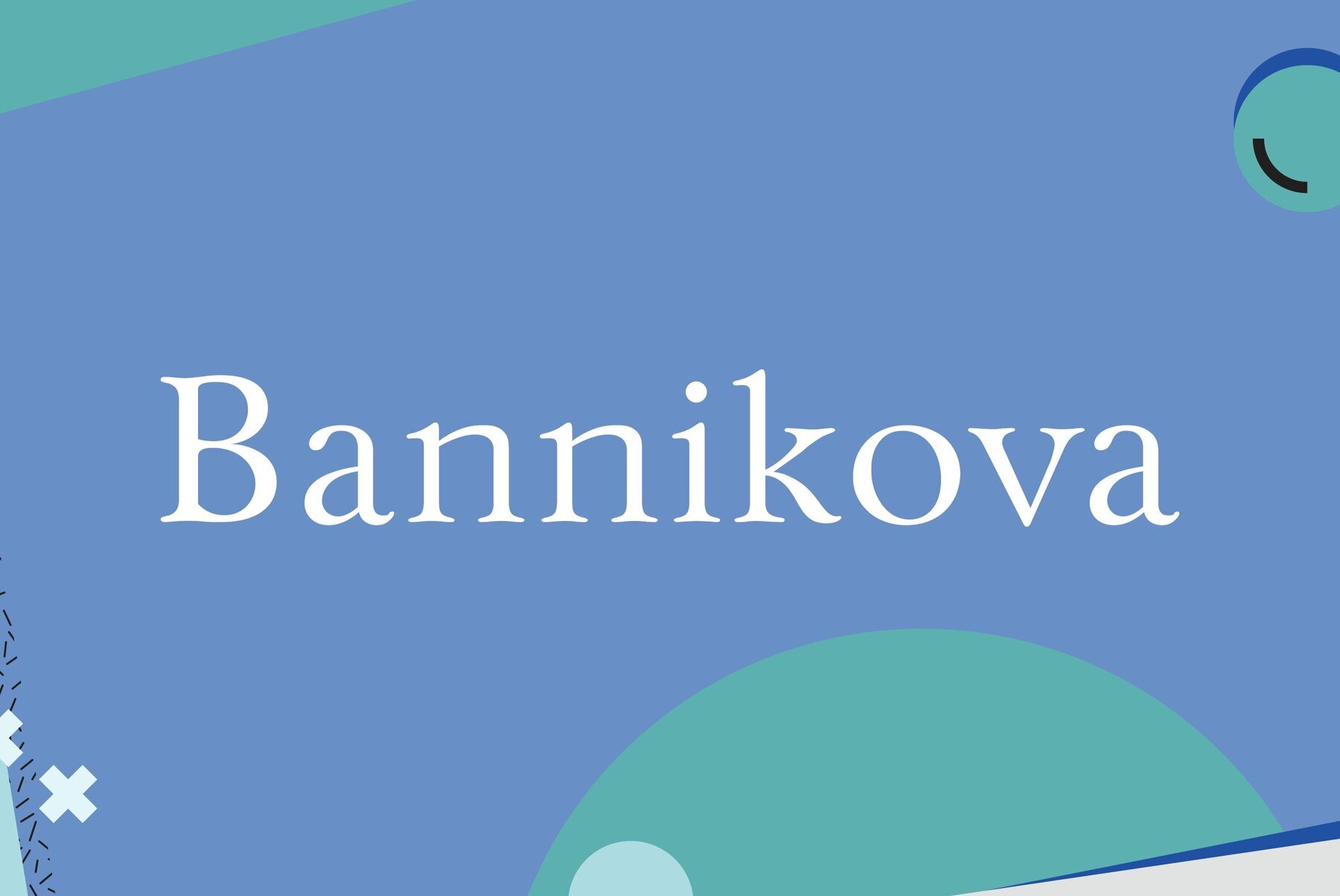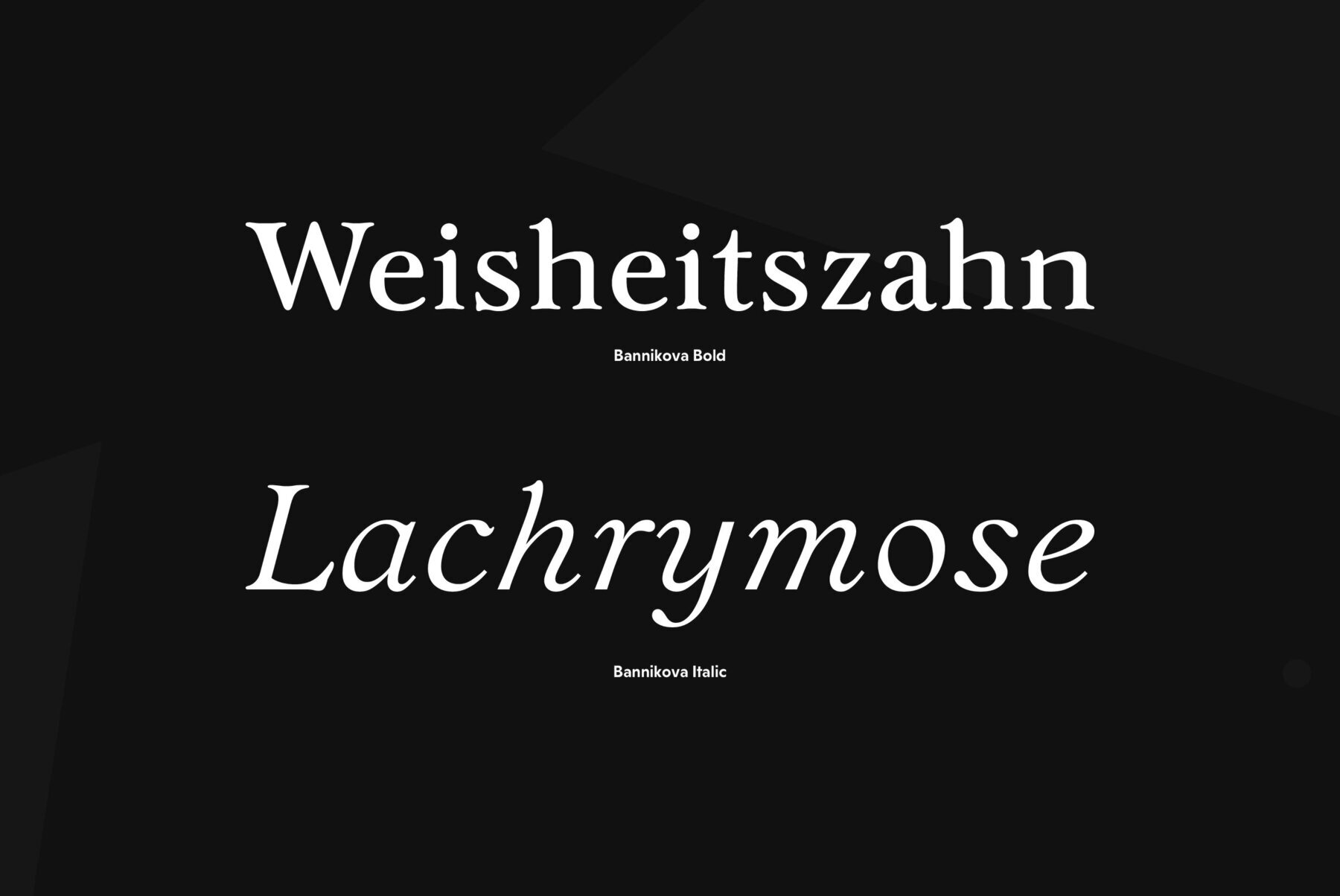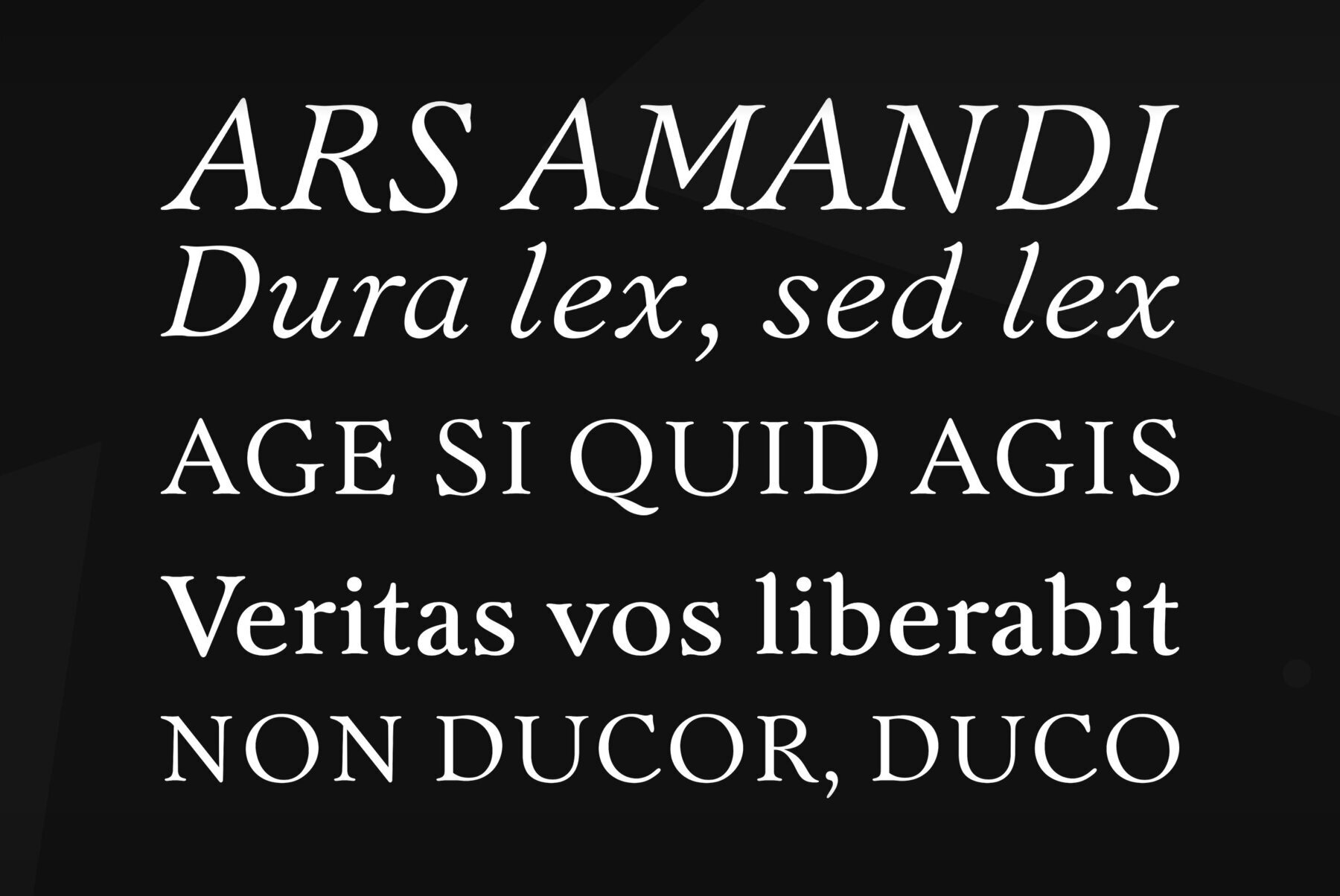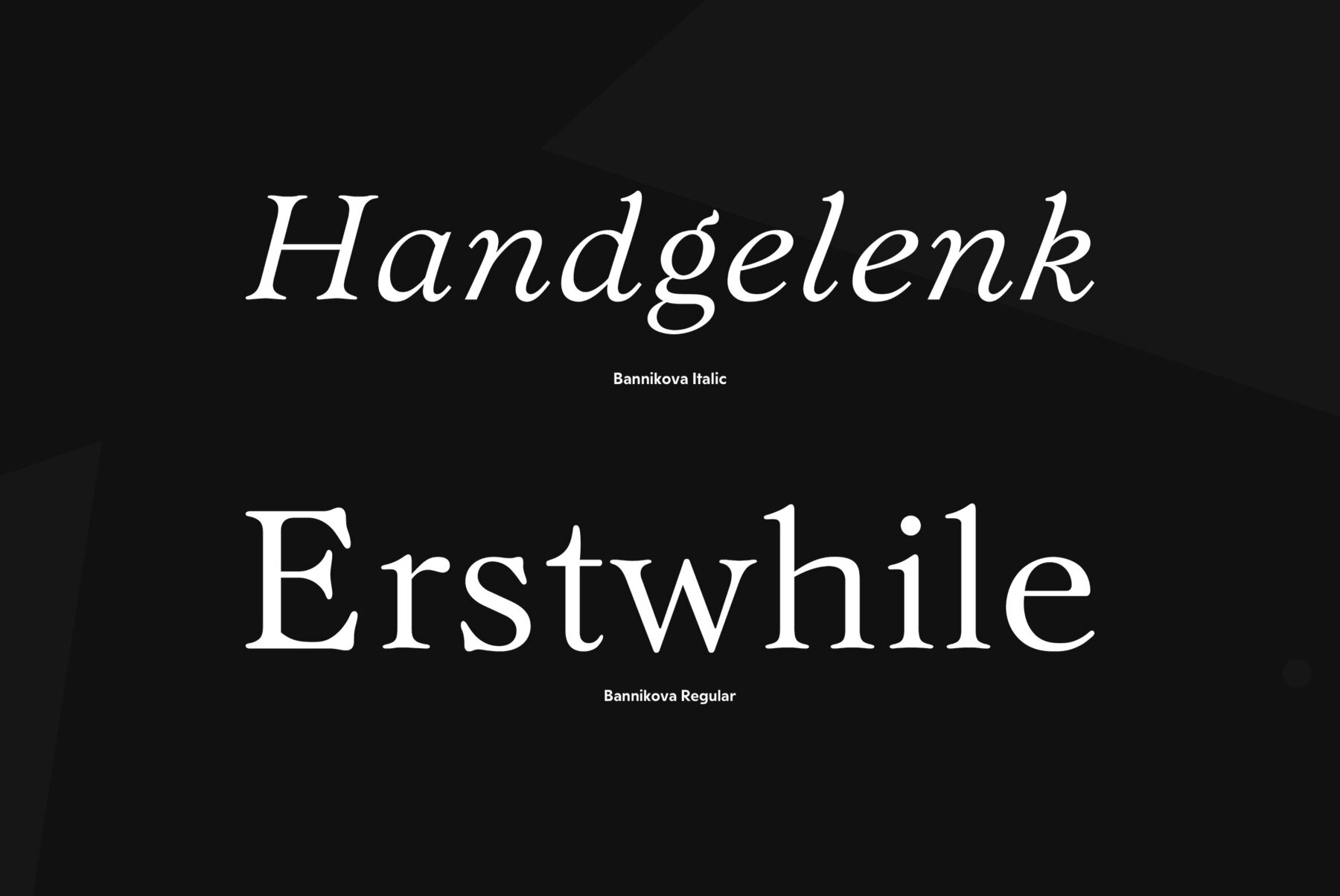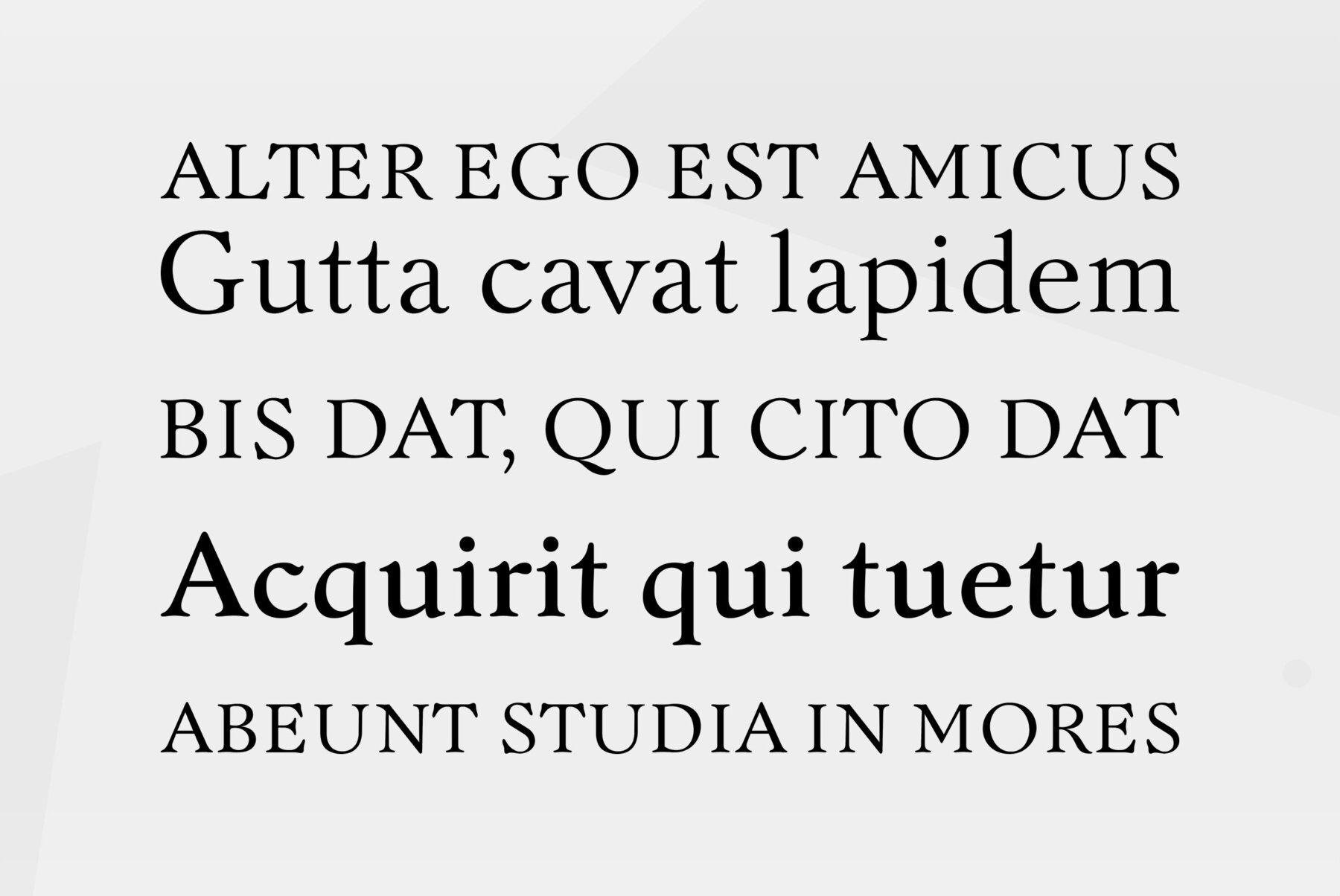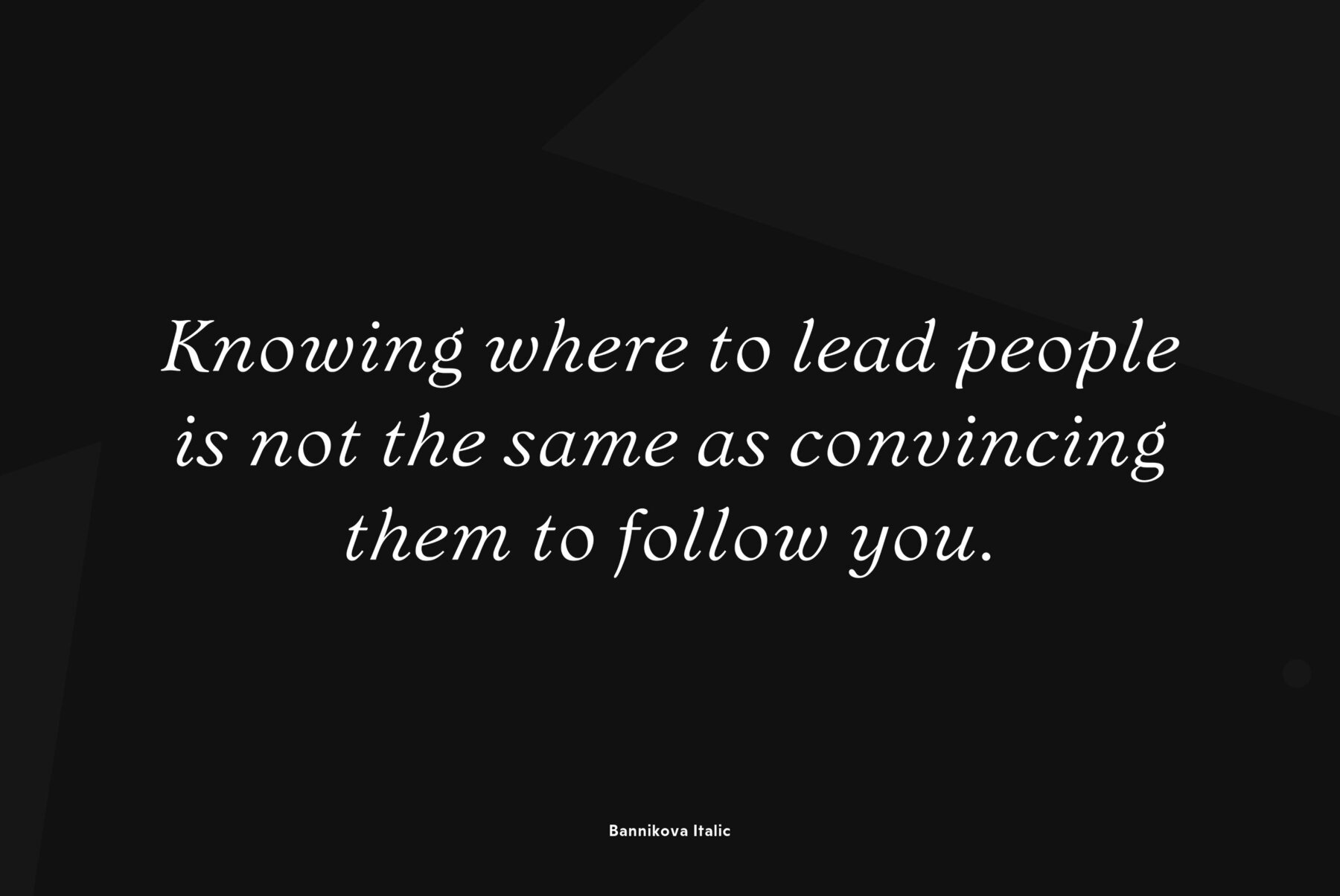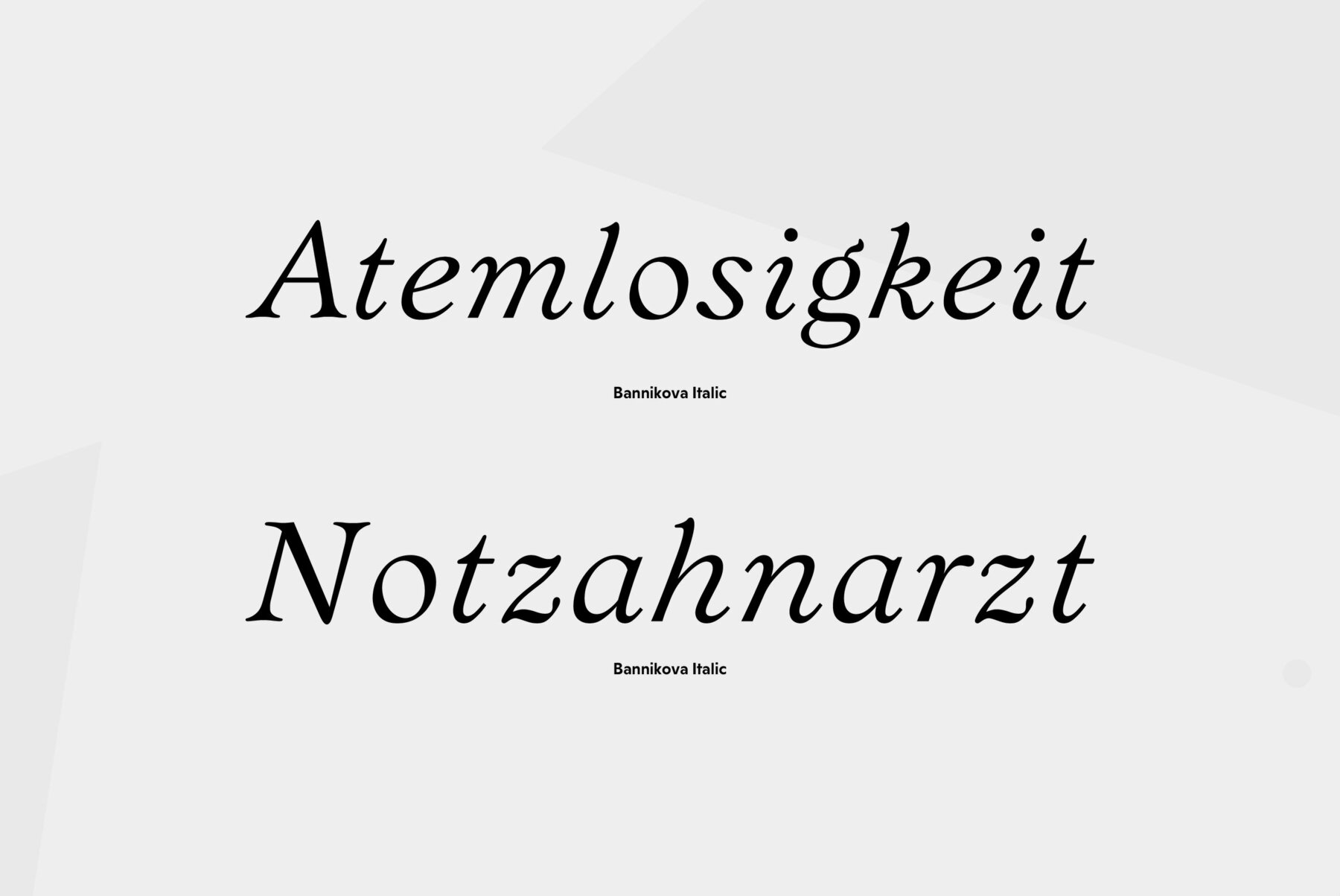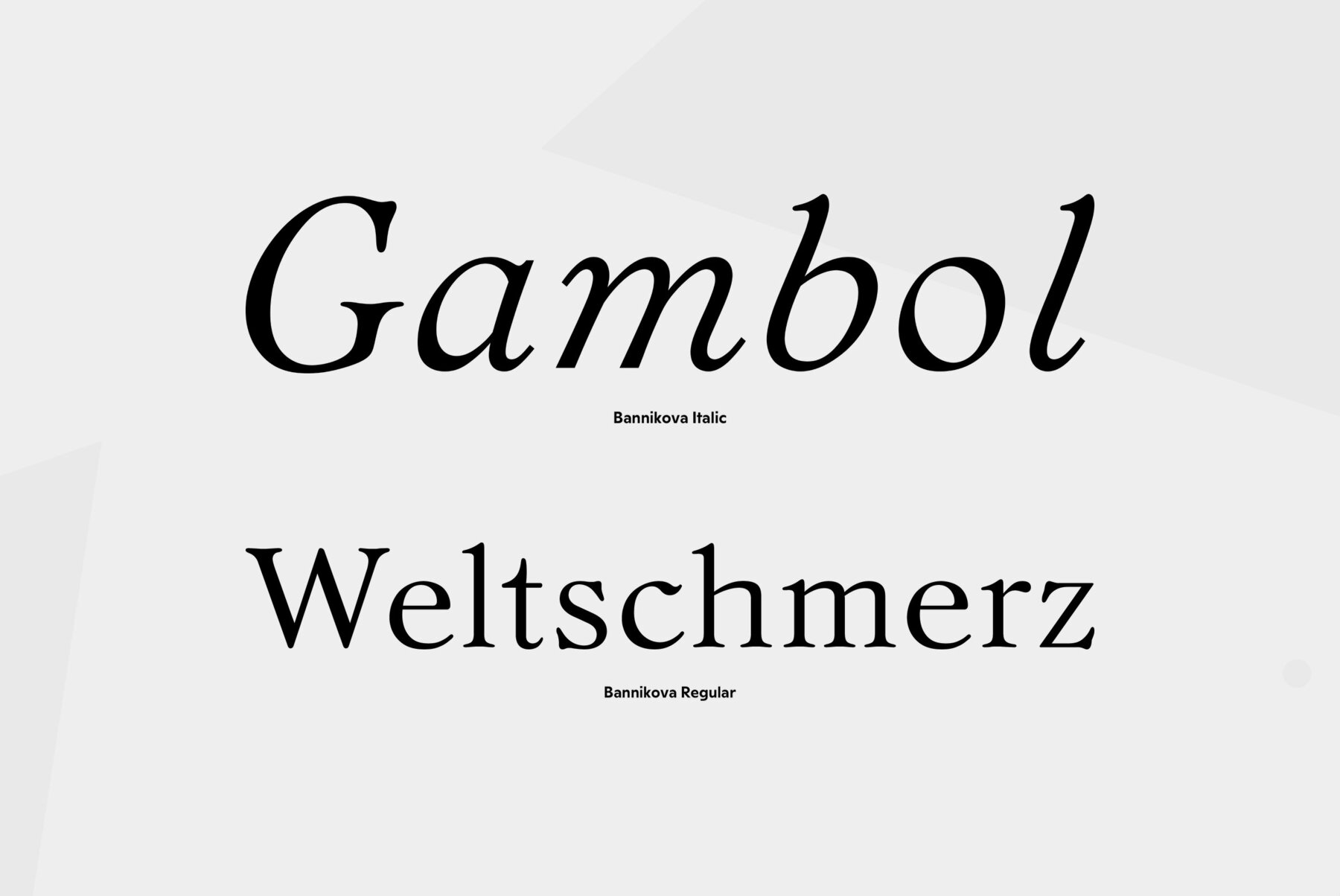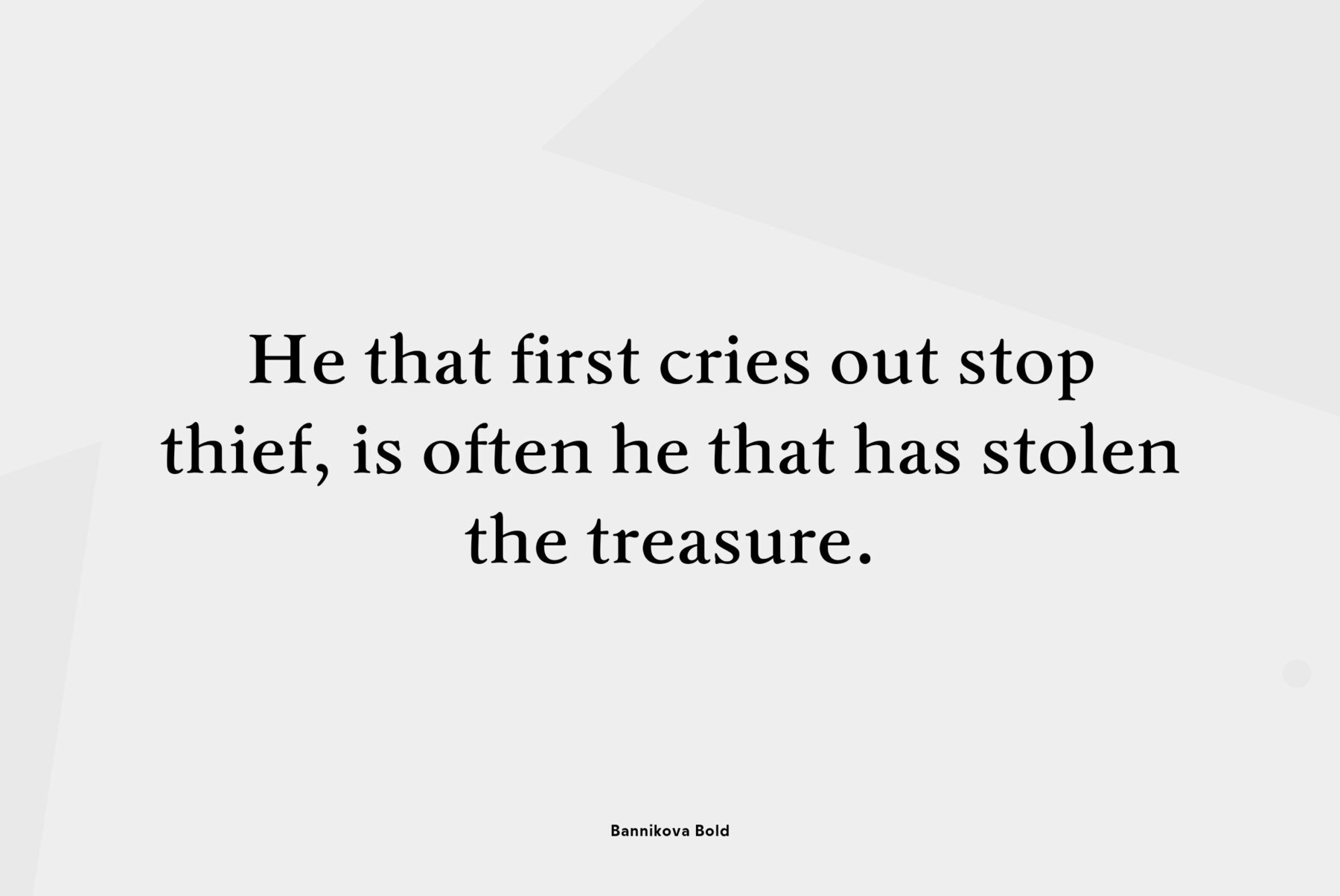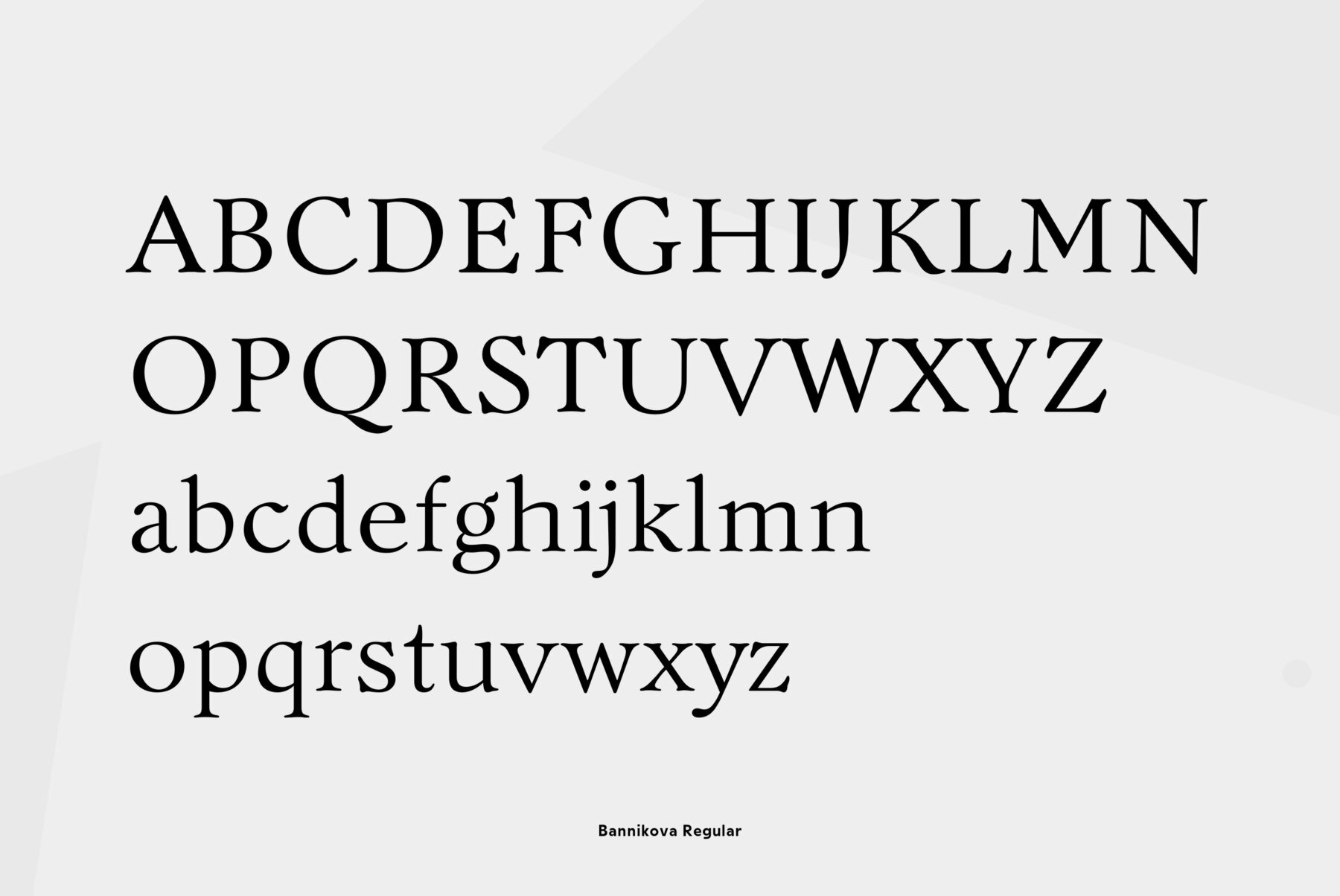
Designed at Polygraphmash type design bureau in 1946-51 by Galina Bannikova, inspired by Russian Grazhdansky early- and mid-18th century typefaces as well as Roman Humanist typefaces of the Renaissance.
Designed at Polygraphmash type design bureau in 1946-51 by Galina Bannikova, inspired by Russian Grazhdansky early- and mid-18th century typefaces as well as Roman Humanist typefaces of the Renaissance. With the archaic features of some characters the face is well recognized because of unique shapes. It is one of the best original typefaces of the Soviet typography. The typeface is useful in text and display composition, in fiction and art books. The revised, improved and completed digital version was designed at ParaType in 2001 by Lyubov Kuznetsova.